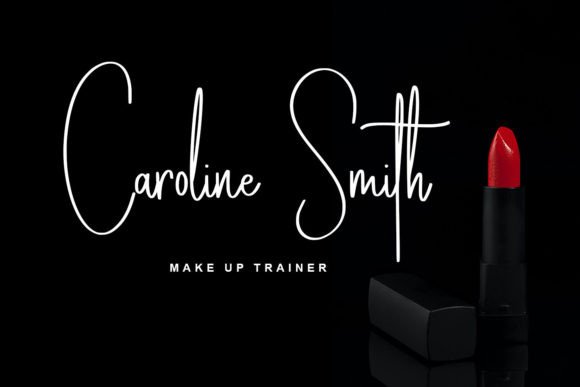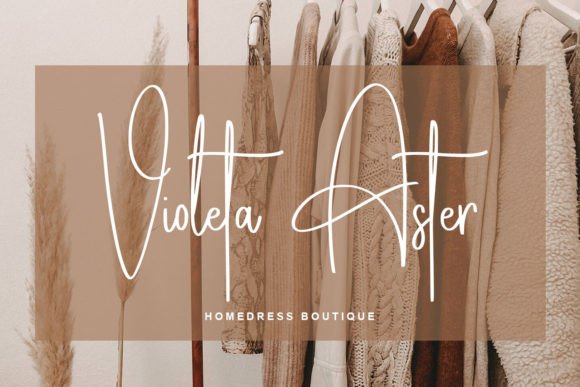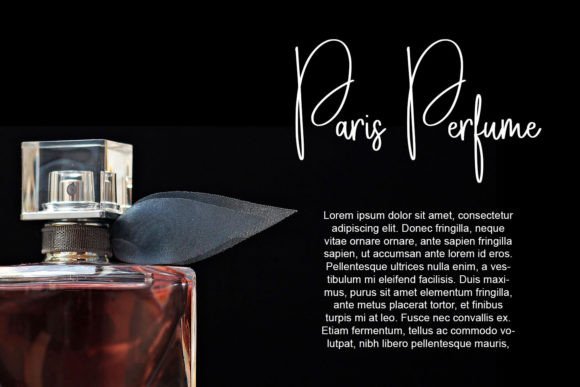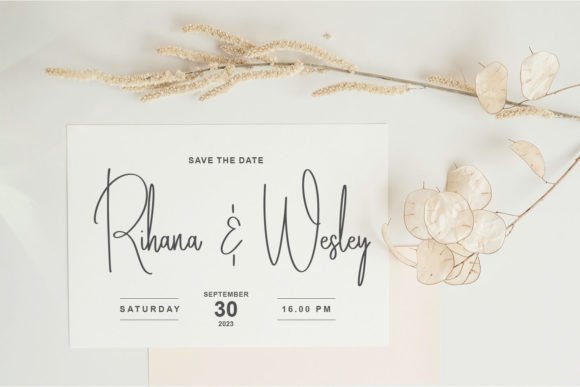
Athalia Signature Font: Elevate Your Designs with a Natural Touch
Are you tired of using generic fonts that lack personality in your designs? Look no further than the Athalia Signature Font, a beautiful and natural script font that can elevate your branding, quotes, logos, and more. In this article, we’ll dive into the features and benefits of the Athalia Signature Font and explore how it can be used to take your designs to the next level.
What is Athalia Signature Font?
Athalia is a carefully crafted signature font that exudes a natural and effortless charm. Its unique and flowing script style makes it perfect for a wide range of design applications, from branding and logos to quotes, t-shirt designs, tote bag designs, cards, banners, and social media graphics. The font’s natural and organic feel makes it an excellent choice for designers and crafters looking to add a personal touch to their work.
Key Features of Athalia Signature Font
- Natural and Organic Feel: Athalia’s script style is reminiscent of handwritten signatures, giving your designs a personal and authentic touch.
- Versatile: The font is suitable for a wide range of design applications, from digital graphics to print materials.
- Elegant and Sophisticated: Athalia’s flowing script style adds a touch of elegance and sophistication to any design.
- Easy to Read: Despite its script style, Athalia is surprisingly easy to read, making it perfect for quotes, captions, and other text-based designs.
Benefits of Using Athalia Signature Font
So, why choose Athalia Signature Font for your designs? Here are just a few benefits of using this beautiful font:
- Stand Out from the Crowd: With Athalia, you can create unique and eye-catching designs that set you apart from the competition.
- Personalize Your Designs: The font’s natural and organic feel makes it perfect for adding a personal touch to your designs.
- Save Time: Athalia’s versatility means you can use it across multiple design applications, saving you time and effort in the long run.
- Enhance Your Brand: By using Athalia in your branding, you can create a consistent and recognizable visual identity that resonates with your audience.
Design Ideas Using Athalia Signature Font
Now that we’ve explored the features and benefits of Athalia Signature Font, let’s take a look at some design ideas to get you started:
- Branding and Logos: Use Athalia to create a unique and memorable logo that reflects your brand’s personality.
- T-Shirt Designs: Add a personal touch to your t-shirt designs with Athalia’s natural and effortless script style.
- Quotes and Inspirational Graphics: Use Athalia to create inspiring and motivational graphics that feature your favorite quotes.
- Tote Bag Designs: Add a touch of elegance to your tote bag designs with Athalia’s flowing script style.
- Social Media Graphics: Use Athalia to create eye-catching social media graphics that stand out in crowded feeds.
In conclusion, Athalia Signature Font is a beautiful and versatile script font that can elevate your designs and add a personal touch. With its natural and organic feel, elegant script style, and ease of use, Athalia is perfect for designers and crafters looking to create unique and eye-catching designs. Whether you’re looking to enhance your branding, create stunning quotes, or design beautiful tote bags, Athalia Signature Font is an excellent choice. So why wait? Download Athalia today and take your designs to the next level!